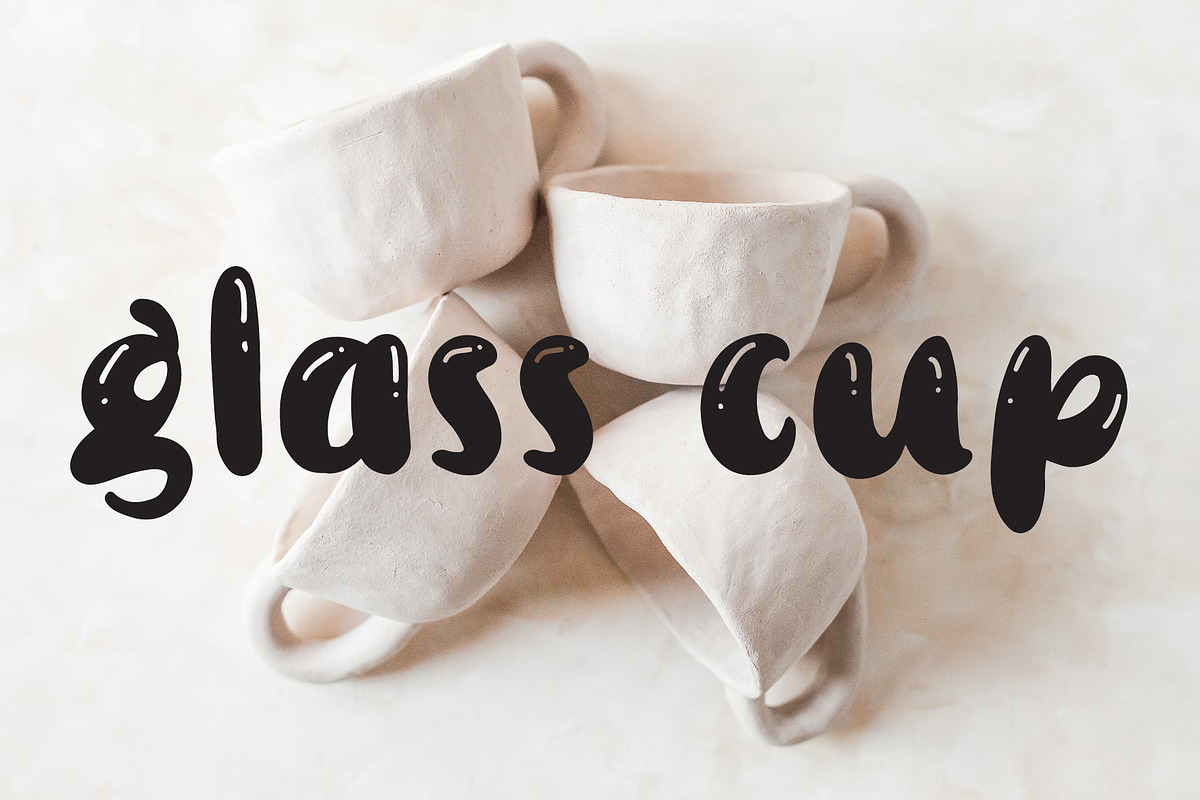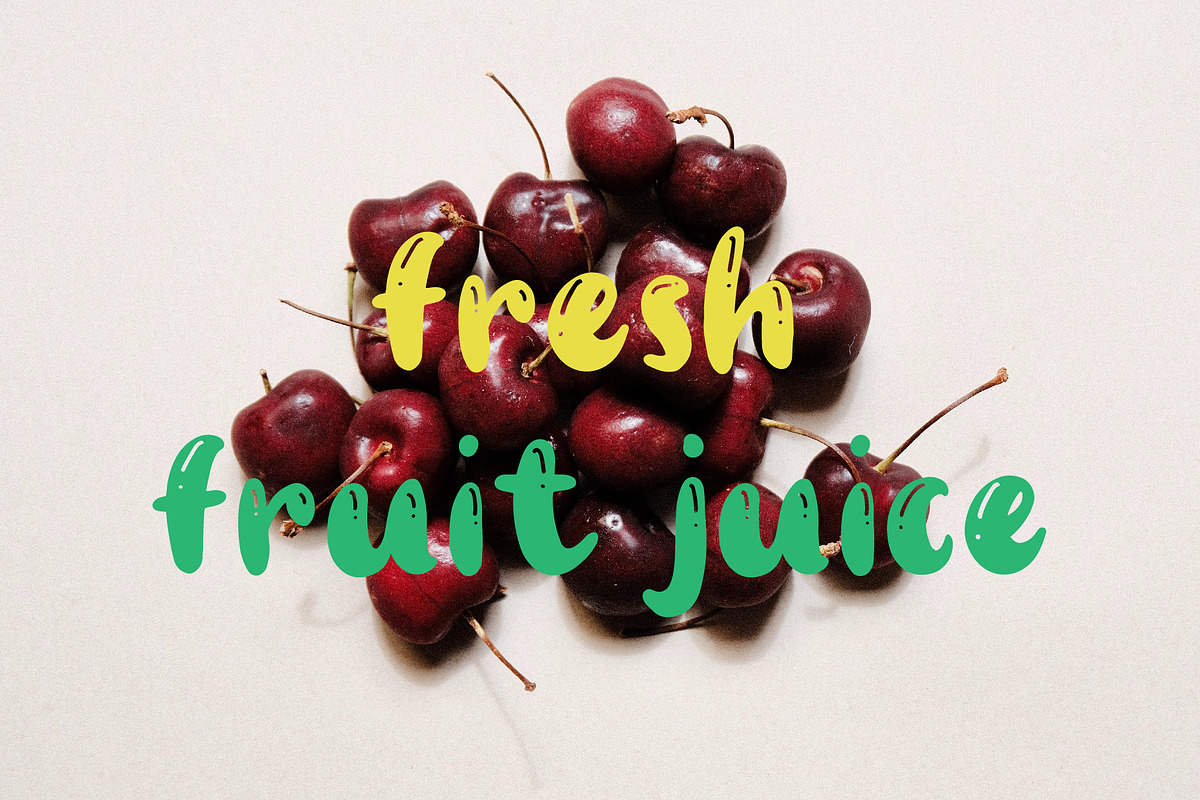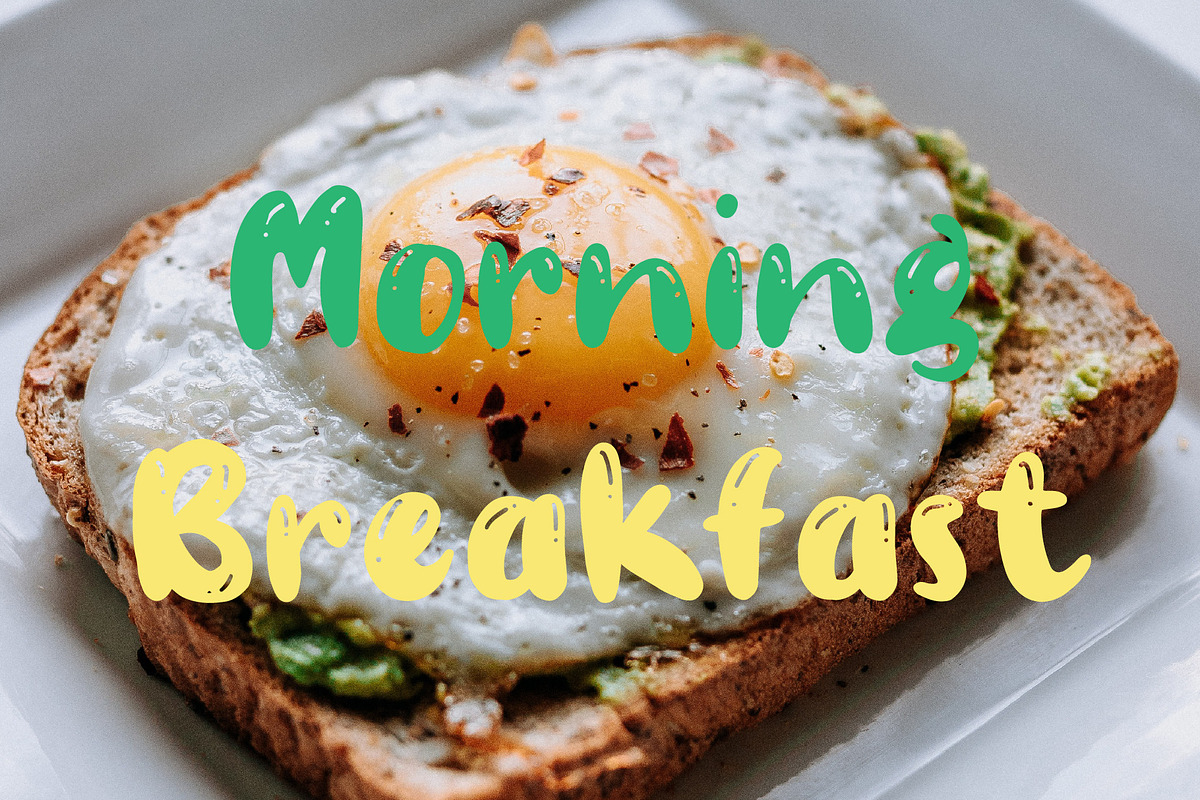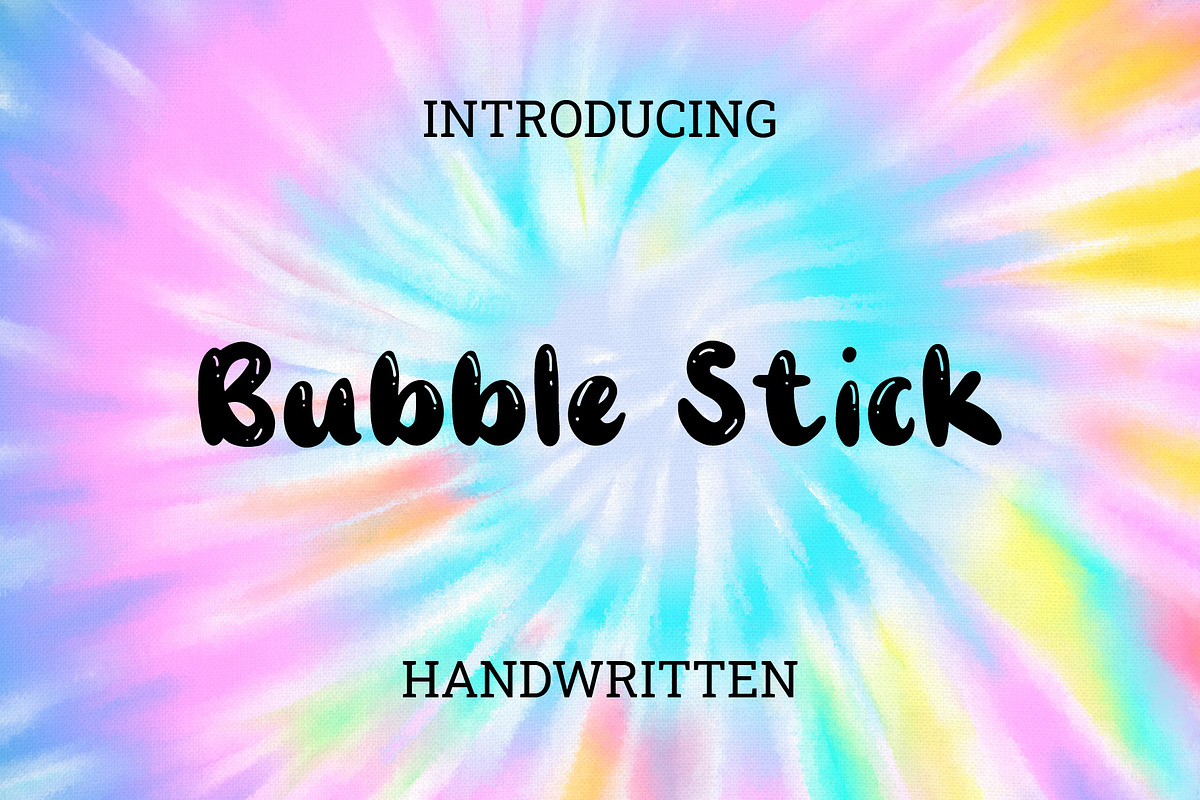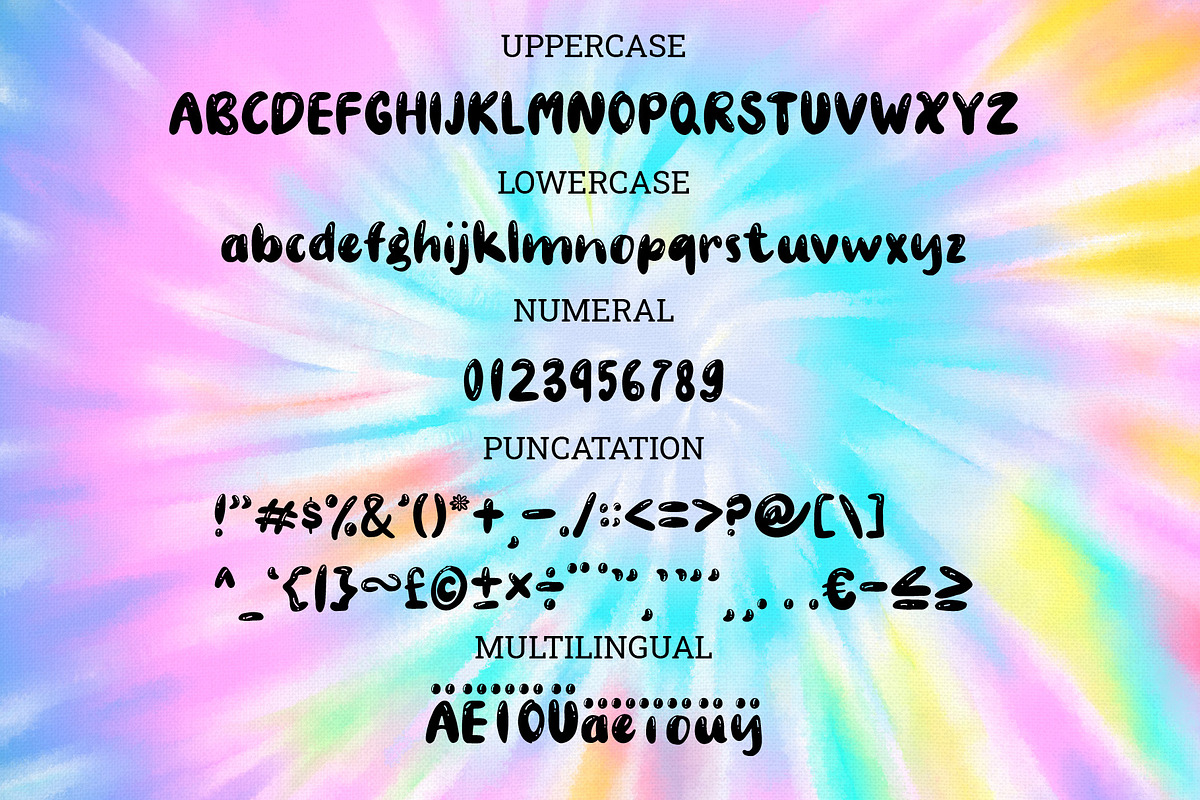
Bubble Stick
Bubble Stick is a cool and bubbly display font. It is perfect for any branding project such as logos, t-shirt printing, creative products, and more. It will look extraordinary in a variety of contexts.